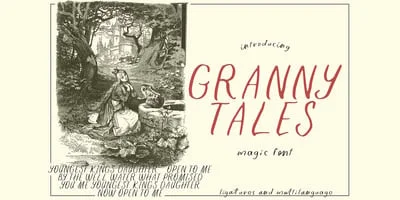
Granny Tales Font
Granny Tales Font is perfect for children's book covers, fairy tale illustrations, storytelling websites, nursery decorations, educational materials, greeting cards, and vintage-style branding projects. This whimsical typeface brings magical storytelling elements to any design project.
What makes Granny Tales Font exciting is its enchanting hand-lettered appearance that captures the essence of classic fairy tales and bedtime stories. The font features organic curves, playful character variations, and a warm, nostalgic feel that instantly connects with readers of all ages. Its charming imperfections and artistic flourishes create an authentic handcrafted look that's impossible to achieve with standard fonts.
The Granny Tales Font family includes multiple weights and styles, featuring regular, bold, and italic variations. Additional character sets include decorative alternates, ligatures, and special ornamental glyphs that enhance the storytelling experience. The family also offers extended language support for international projects.
Whether you're designing children's literature, creating magical branding, or developing educational content, Granny Tales Font offers exceptional versatility. This premium typeface transforms ordinary text into captivating visual narratives that engage audiences and create memorable reading experiences. The font's unique personality makes every project feel special and professionally crafted while maintaining excellent readability across all applications.